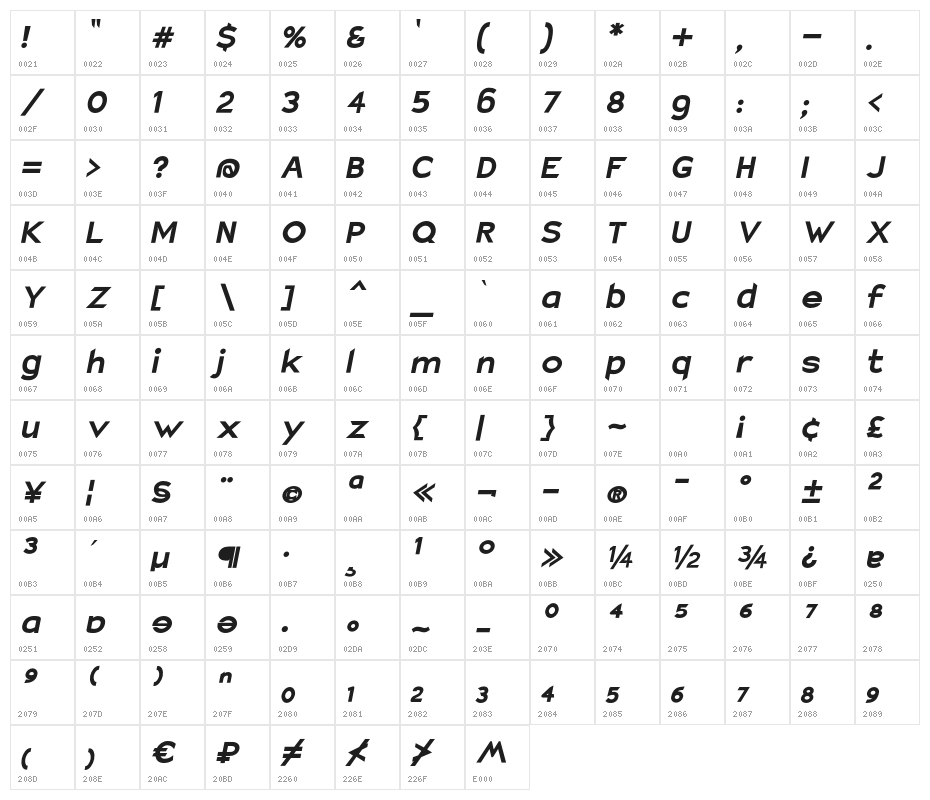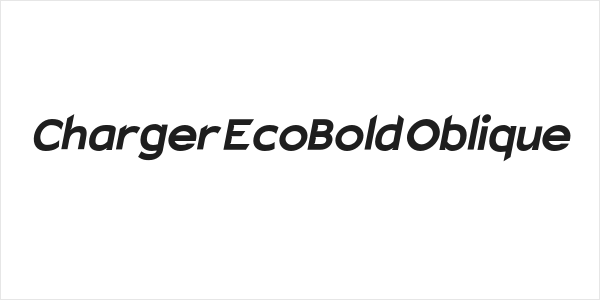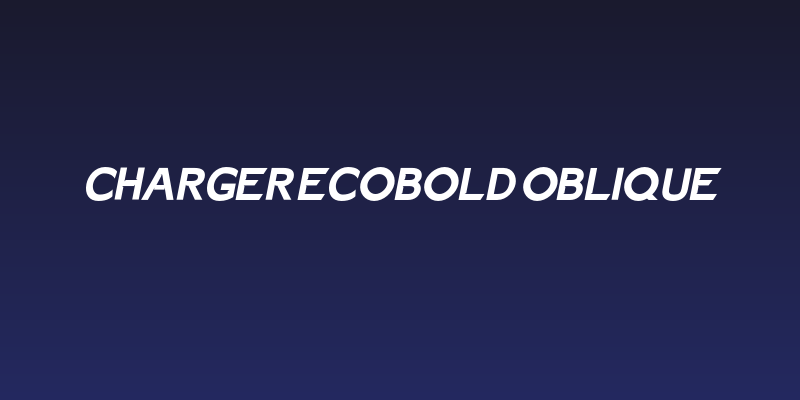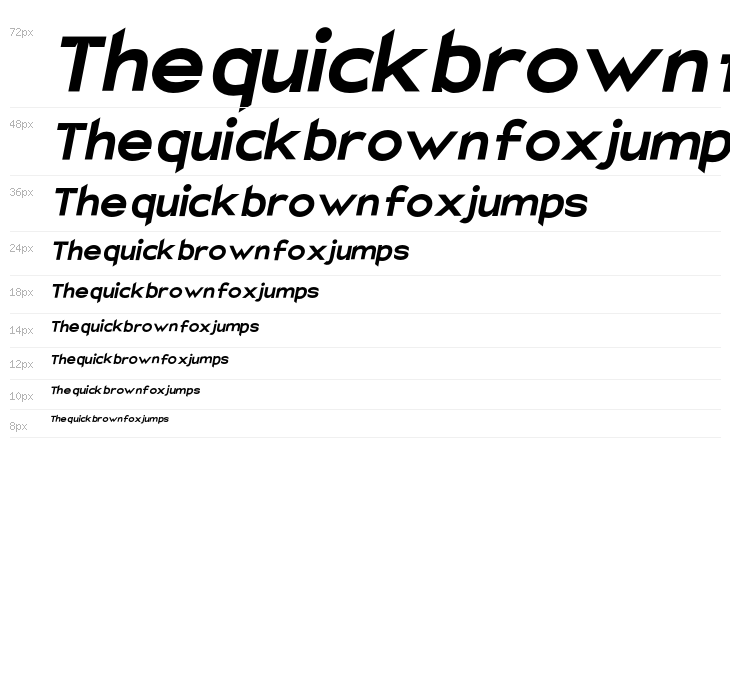
Charger EcoBold Oblique Font
Charger EcoBold Oblique Description
This font exhibits a bold and dynamic style with a distinct oblique slant, giving it a sense of motion and energy. The characters are well-defined with a consistent stroke weight, contributing to its bold appearance. The uppercase and lowercase letters maintain a uniformity in style, with rounded edges that soften the overall look. The numerals are clear and legible, matching the style of the alphabetic characters. Special characters are included, maintaining the same bold and slanted characteristics. This font is ideal for making a strong visual impact.